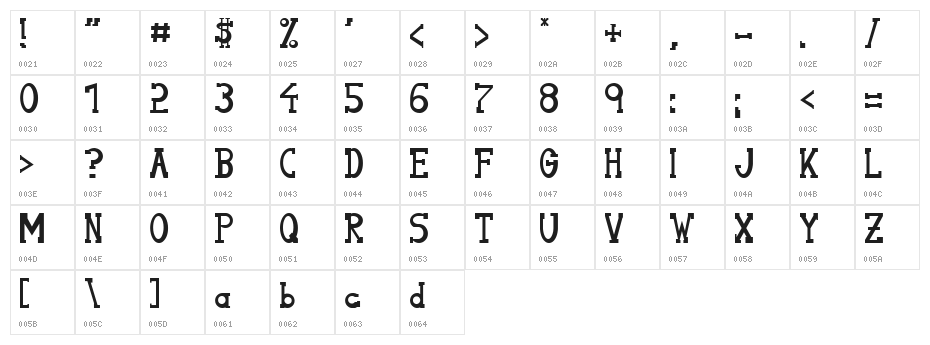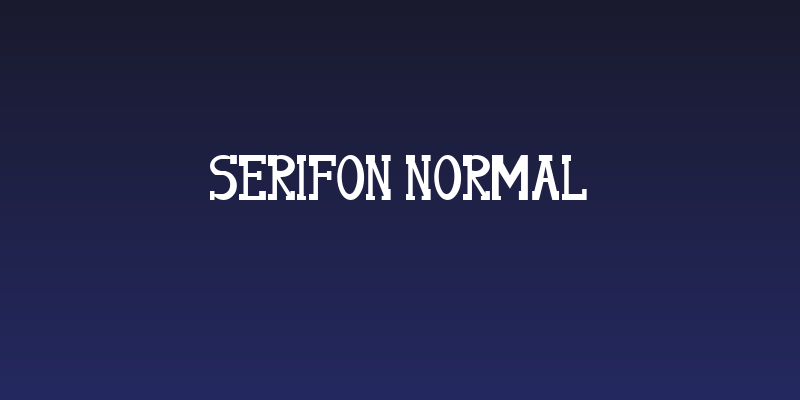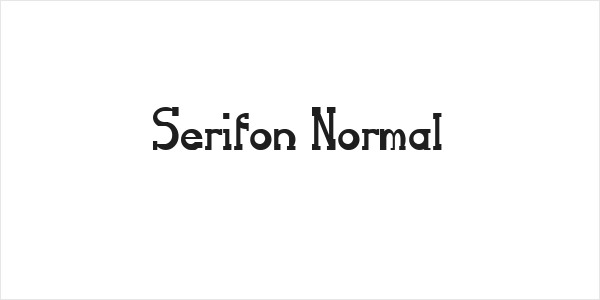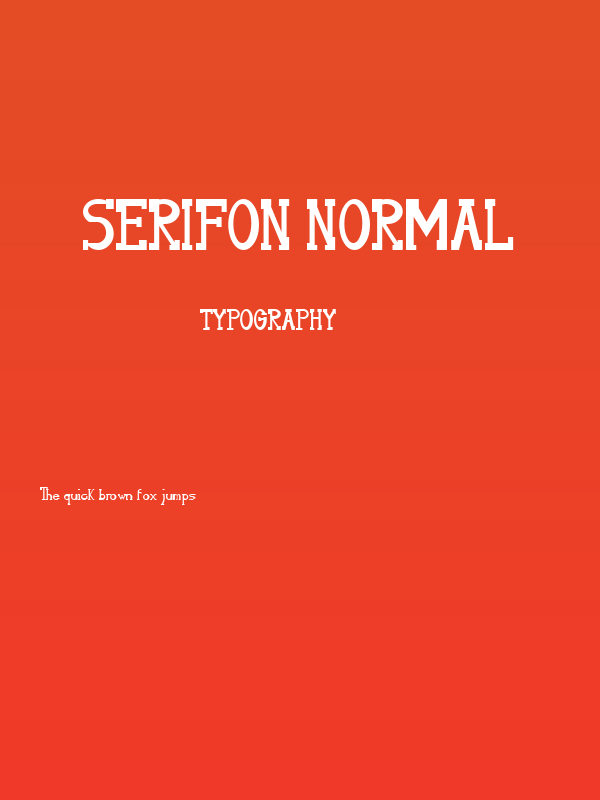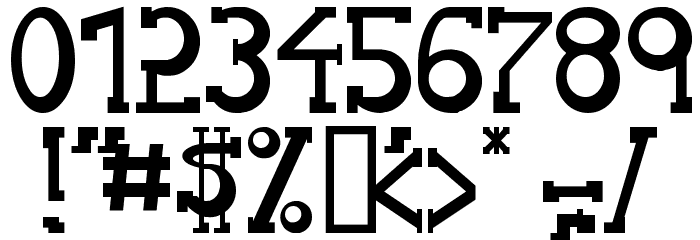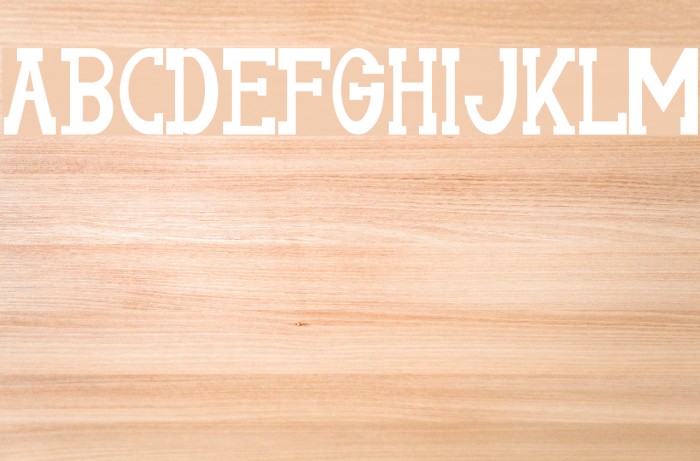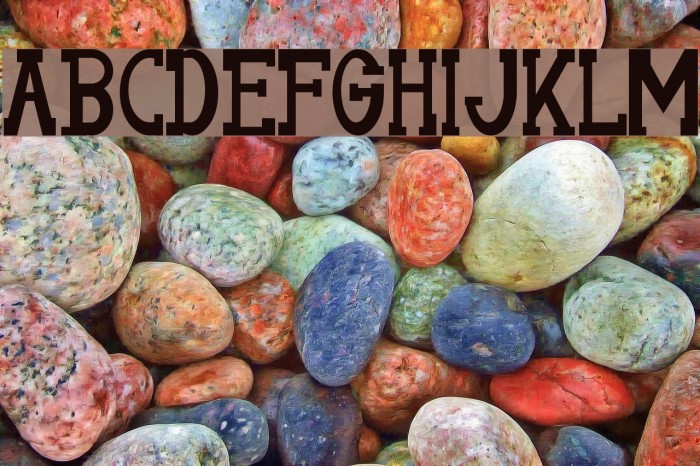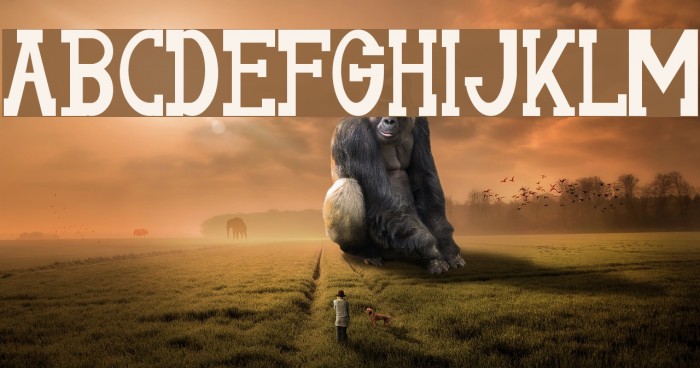
Serifon Normal Font
Serifon Normal Description
This font features a bold and robust design with strong serifs and a distinctive presence. The uppercase letters are tall and commanding, while the lowercase letters maintain a consistent and harmonious flow. The numerals are clear and legible, making them suitable for various applications. Special characters are uniquely styled, adding a touch of creativity to the overall design. The font's boldness and clarity make it ideal for impactful headlines and attention-grabbing displays.
| Overall Style | Classic |
| Proposed Projects | This font is perfect for branding projects, poster designs, book covers, and any creative work that requires a strong visual impact. |